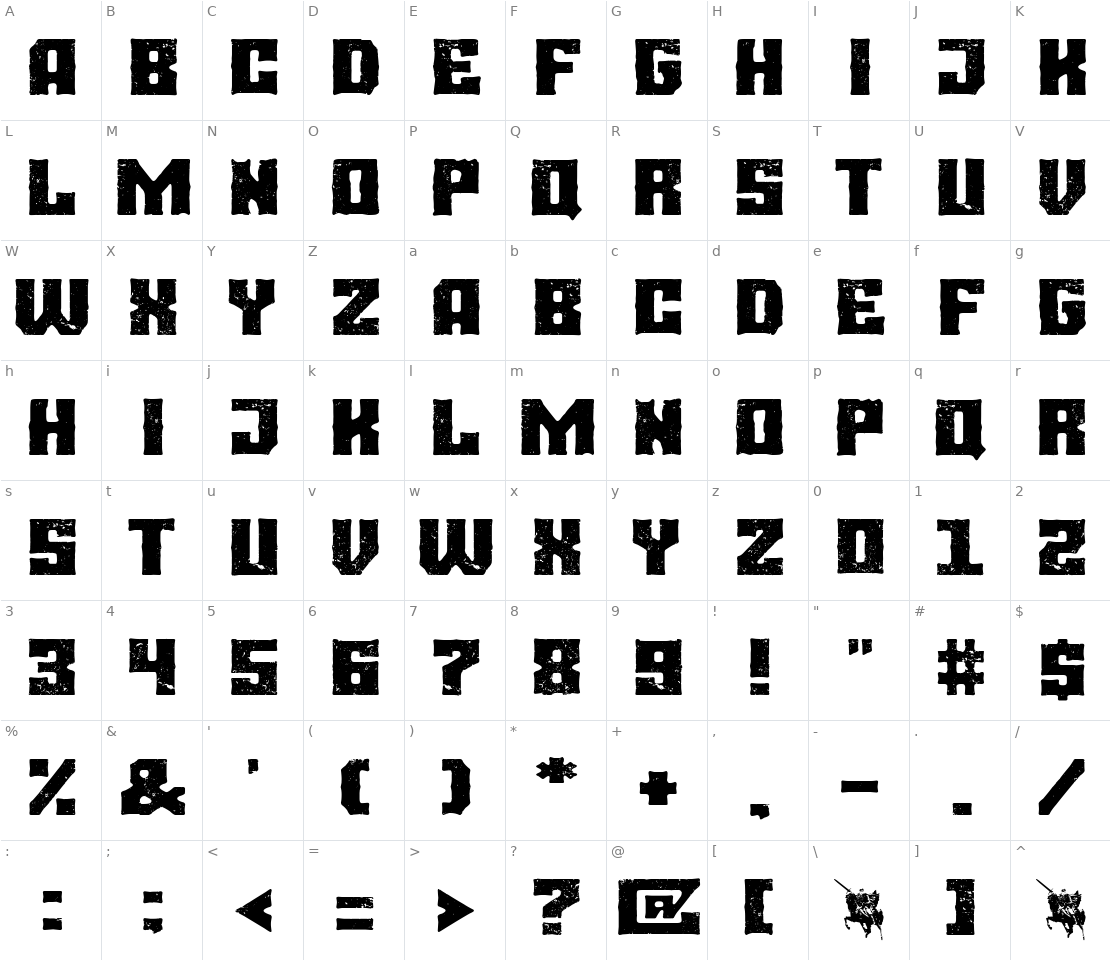
Burgos City
Burgos City is a heavy, rough-hewn slab serif from Woodcutter with uppercase letterforms that look like they were stamped hard into weathered wood. The distressed texture and bold weight give it a gritty, frontier-town character, landing somewhere between old western signage and punk show flyers. Built for posters and headlines where you want something that feels physical and unapologetically loud.